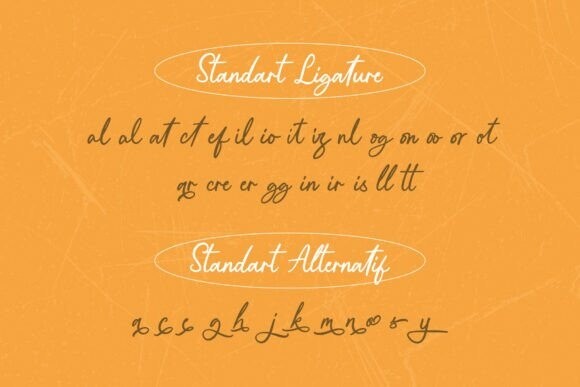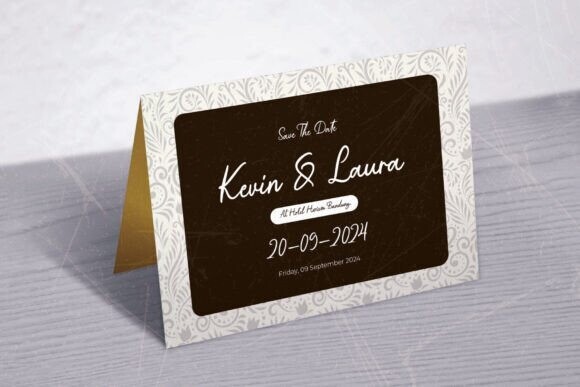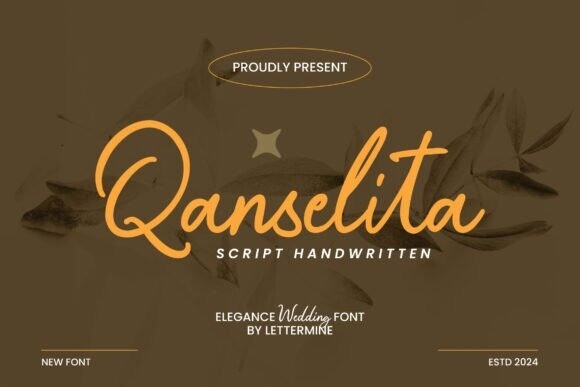
Qanselita Font
Qanselita Font is a beautifully crafted monoline script font that embodies the elegance and fluidity of natural handwriting. Each stroke flows smoothly, creating a harmonious rhythm that brings warmth and personality to any design. This font is the perfect blend of simplicity and sophistication, offering a versatile yet unique touch for any project.
Infuse your projects with Qanselita’s effortless charm, where every line speaks of elegance and authenticity. Embrace the beauty of handwritten style—add Qanselita to your font collection today!